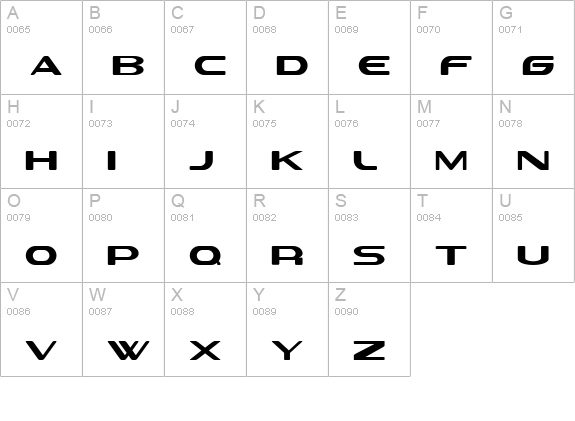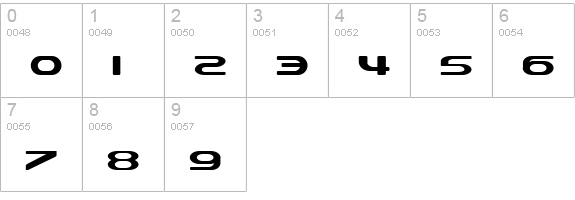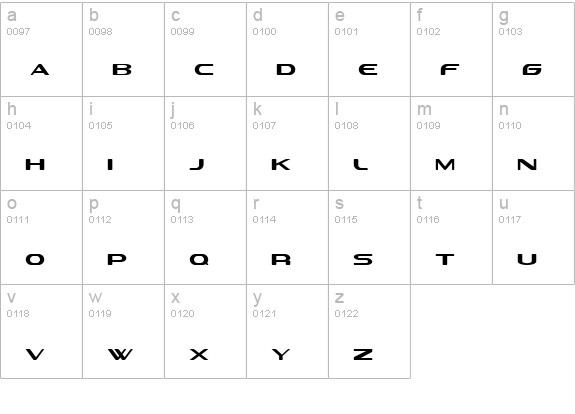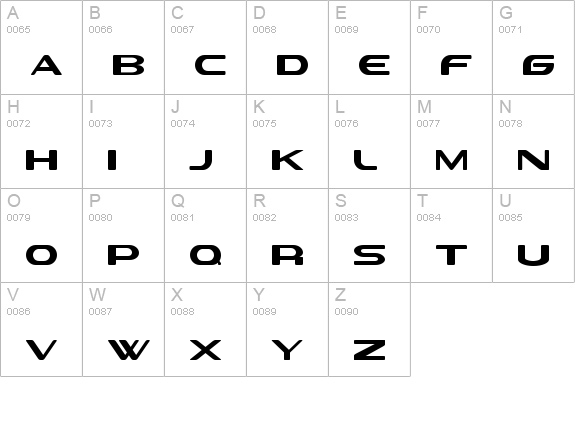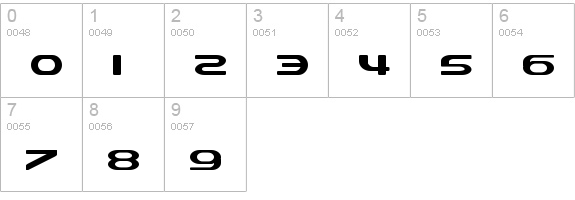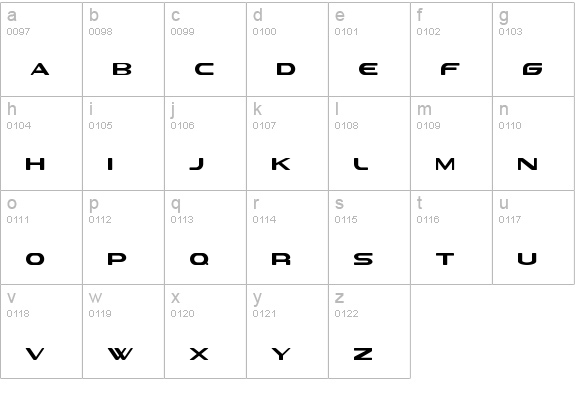
Sevil alias Esra Lite Font Details
Introducing Sevil alias Esra Lite, a stunning and versatile font that is sure to elevate your designs to new heights. This exquisite typeface combines elegance and modernity, making it perfect for a wide range of projects, from logos and branding to social media posts and invitations. Sevil alias Esra Lite features a unique combination of sleek and sophisticated letterforms, with clean lines and subtle curves that add a touch of refinement to any design. Its stylish and contemporary appearance will effortlessly captivate your audience, leaving a lasting impression. What sets Sevil alias Esra Lite apart is not only its impeccable design but also its accessibility. This incredible font is available for free, allowing designers and creatives to easily incorporate it into their projects without breaking the bank. You can download Sevil alias Esra Lite at FontsMarket.com, a trusted source for high-quality fonts. With Sevil alias Esra Lite, you have the freedom to explore your creativity without limitations. Whether you're designing a logo for a prestigious brand or creating eye-catching social media graphics, this font will bring your vision to life with its versatility and elegance. Don't miss the opportunity to add Sevil alias Esra Lite to your font collection. Download it for free at FontsMarket.com and unlock a world of endless design possibilities. Embrace the beauty of this remarkable font and watch as your creations truly shine.